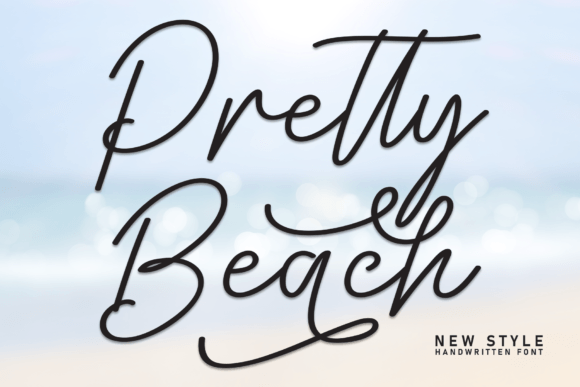
Discover the Charm of Pretty Beach Font: Elevate Your Designs with Elegance
The world of typography is vast and diverse, offering a multitude of fonts to suit every design need. Among these, the Pretty Beach Font stands out for its unique blend of elegance and charm. This beautifully crafted handwritten font is designed to add a touch of sophistication to any project, making it a favorite among designers and creatives. In this article, we’ll explore the characteristics, uses, and benefits of the Pretty Beach Font, and how it can elevate your designs to new heights.
The Essence of Pretty Beach Font
Pretty Beach is a neat and beautiful handwritten font that exudes an elegant touch. Its distinct style is characterized by flowing lines and curves that give it a timeless appeal. This font is not just a typeface; it’s an expression of artistry and creativity. The moment you lay eyes on it, you’ll fall in love with its incredibly distinct and timeless style, which is perfect for creating spectacular designs.
Key Features of Pretty Beach Font
- Elegant and Refined: The Pretty Beach Font boasts an elegant and refined look that adds a touch of luxury to any design.
- Handwritten with Love: Each letter is carefully crafted by hand, giving the font a personal and unique feel.
- Timeless Appeal: The font’s classic style ensures that it remains relevant and stylish for years to come.
- Versatile: Suitable for a wide range of projects, from branding and advertising to packaging and digital media.
Uses of Pretty Beach Font
The versatility of Pretty Beach Font makes it an excellent choice for various design projects. Here are some of the ways you can use this beautiful font:
Design Projects That Shine with Pretty Beach Font
- Branding and Logos: Create a lasting impression with a logo that exudes elegance and sophistication.
- Wedding and Event Invitations: Add a touch of romance and class to your invitations and event materials.
- Packaging Design: Stand out on store shelves with product packaging that features a unique and beautiful typeface.
- Digital Media: Enhance your website, social media posts, and digital advertisements with a font that captures attention.
Benefits of Using Pretty Beach Font
Choosing the right font for your project can significantly impact its success. Here are some benefits of using Pretty Beach Font:
Why Choose Pretty Beach Font?
- Unique and Memorable: The font’s distinct style ensures that your designs are memorable and stand out from the crowd.
- Easy to Read: Despite its elegant and refined look, the Pretty Beach Font remains clear and easy to read.
- Highly Versatile: It can be used for both digital and print projects, making it a valuable addition to your font library.
- Time-Saving: With its comprehensive set of characters and styles, you can create stunning designs in less time.
How to Use Pretty Beach Font Effectively
To get the most out of Pretty Beach Font, consider the following tips:
Tips for Effective Use
- Pair it with Other Fonts: Combine Pretty Beach Font with complementary fonts to create visual interest and hierarchy.
- Experiment with Sizes and Colors: Play around with different sizes and colors to find the perfect combination for your design.
- Use it for Headings and Titles: The font’s elegance makes it ideal for headings and titles, but you can also use it for body text for a more cohesive look.
- Consider the Mood: Ensure that the font’s style aligns with the mood and message of your project.
The Pretty Beach Font is a beautiful and elegant typeface that can elevate your designs to new heights. Its timeless appeal, versatility, and unique style make it an excellent choice for a wide range of projects. Whether you’re a professional designer or a DIY enthusiast, this font is sure to inspire your creativity and help you create spectacular designs. So, fall in love with the Pretty Beach Font and discover the charm it can bring to your work.